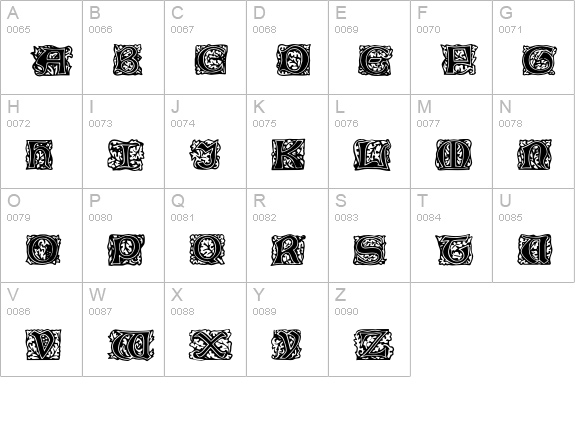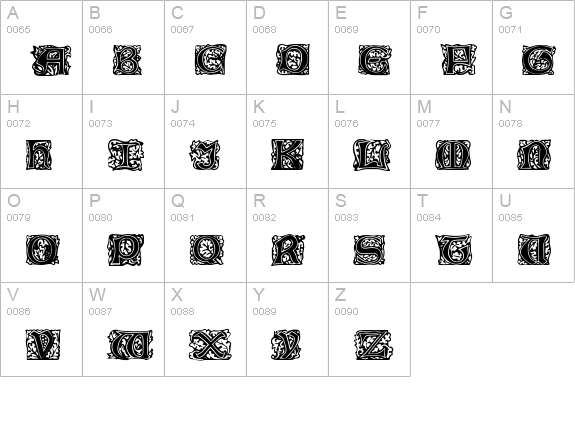
ChaucerianInitials Font Details
ChaucerianInitials font is a stunning display typeface that captures the essence of medieval calligraphy with its ornate and intricate letterforms. Inspired by the works of Geoffrey Chaucer, this font exudes a sense of elegance and sophistication, making it perfect for adding a touch of historical flair to your projects. The intricate details and decorative elements of ChaucerianInitials font make it a truly unique choice for any design that requires a touch of old-world charm. Whether you're working on invitations, posters, or branding materials, this font is sure to make a statement and leave a lasting impression on your audience. Best of all, ChaucerianInitials font is available for free download at FontsMarket.com, making it easily accessible for anyone looking to add a touch of medieval magic to their designs. Don't miss out on the opportunity to enhance your projects with this exquisite font – download ChaucerianInitials today and let your creativity soar!